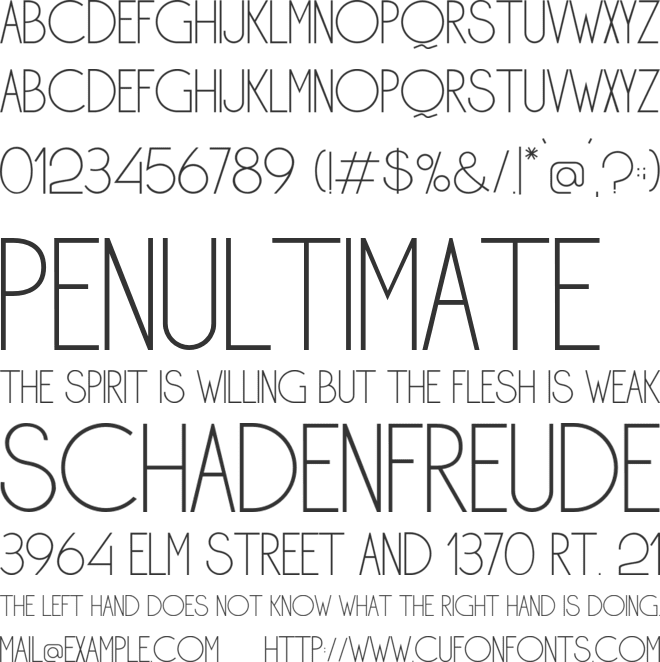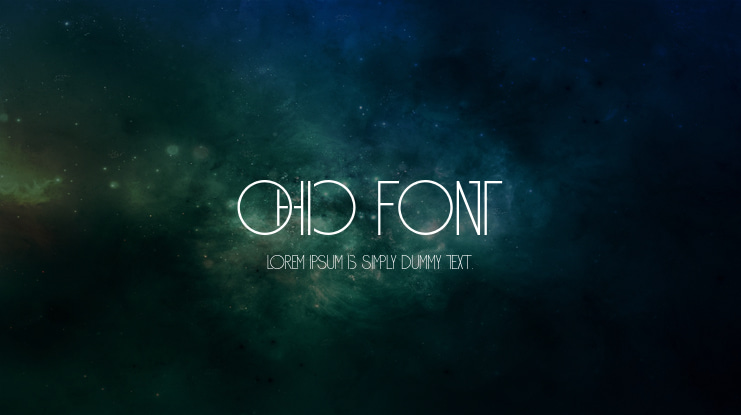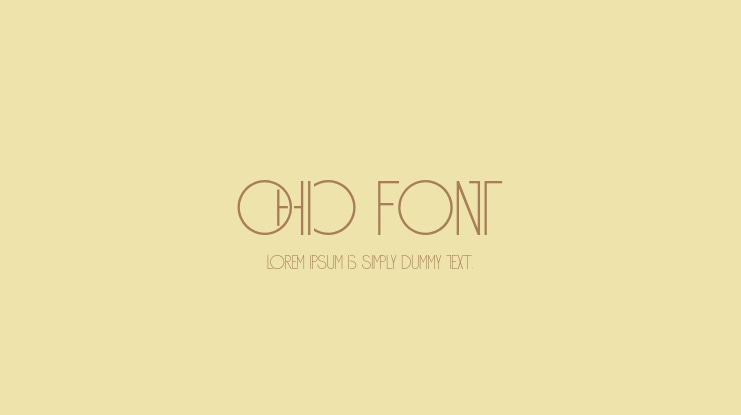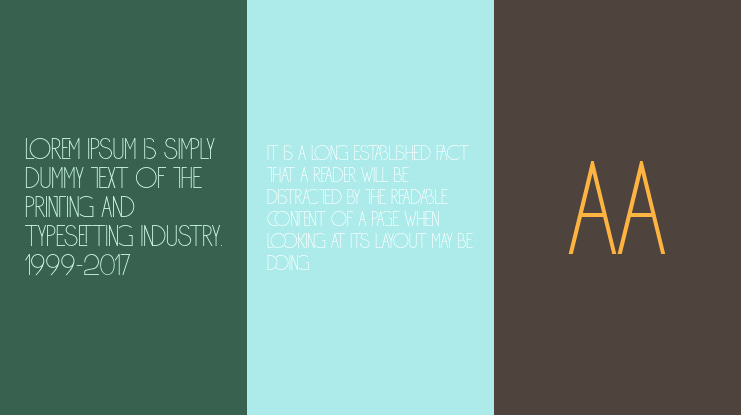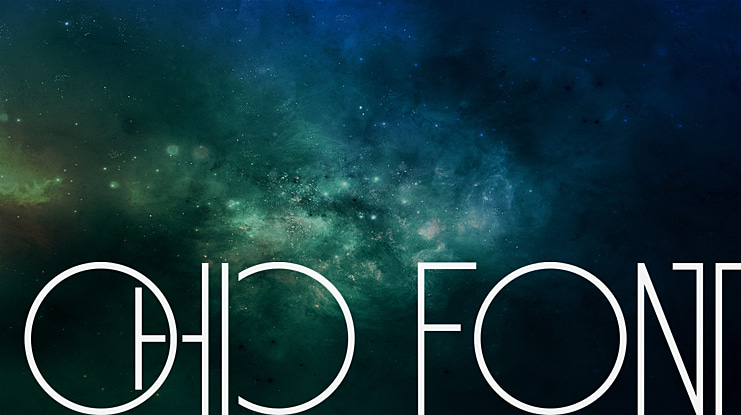
Ohio Font
Introducing Ohio Font is a Futuristic Sans font with a stylish touch inspired by the famous minimalist logo and Ohio is perfect for the purposes of designing templates, brochures, videos, advertising branding, logos and more.